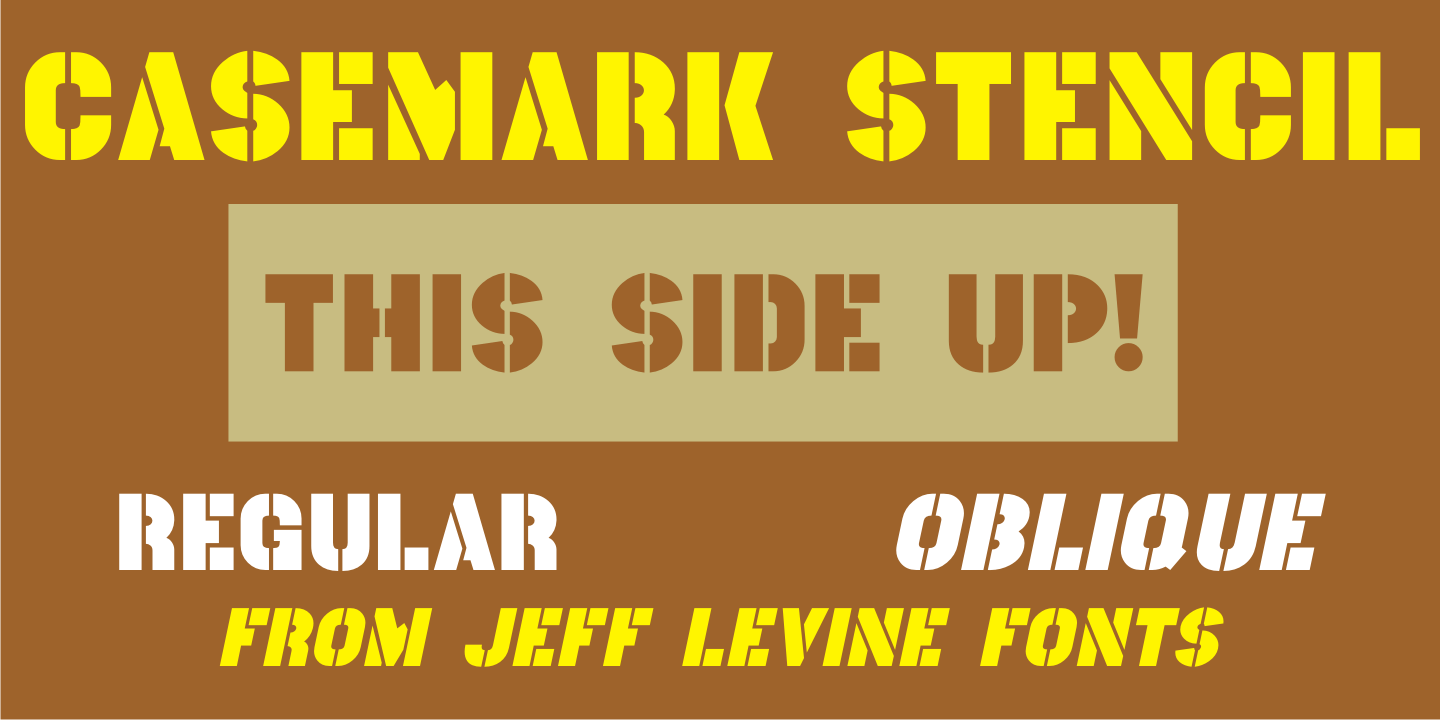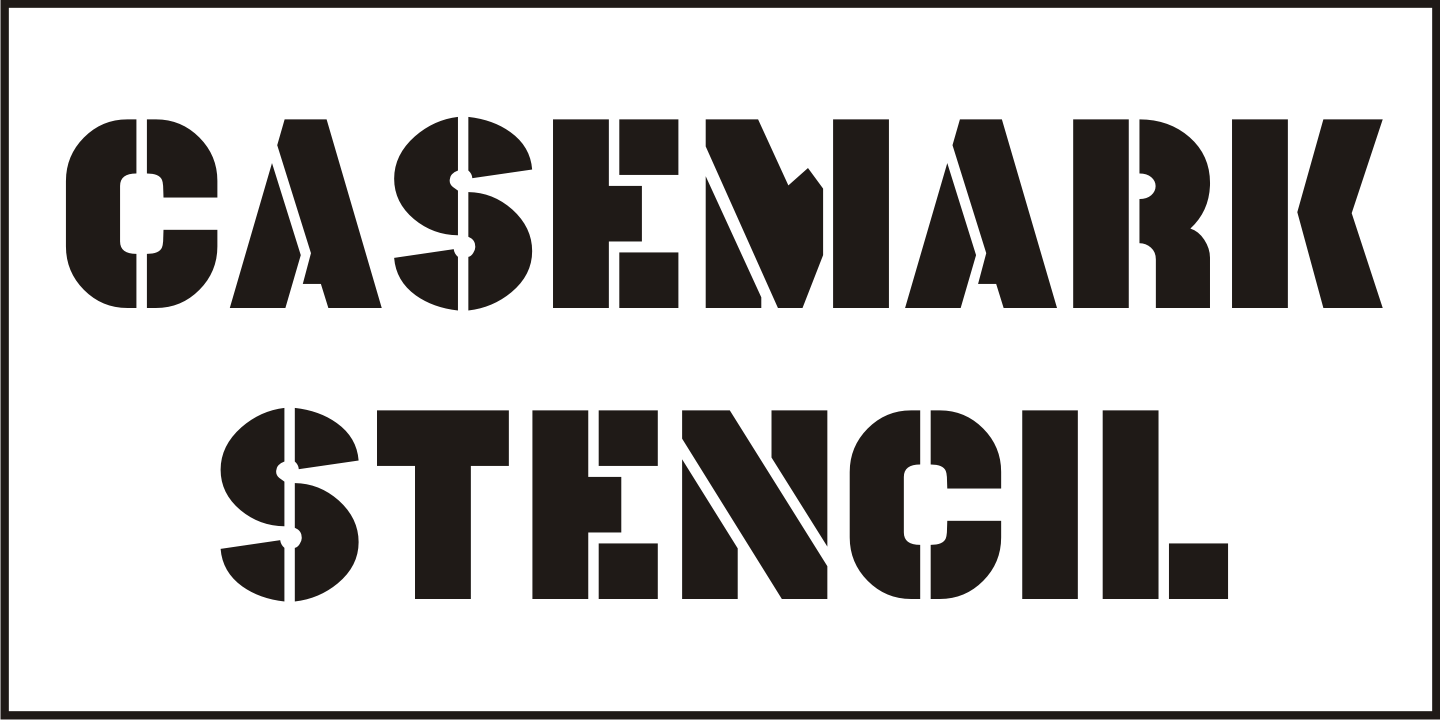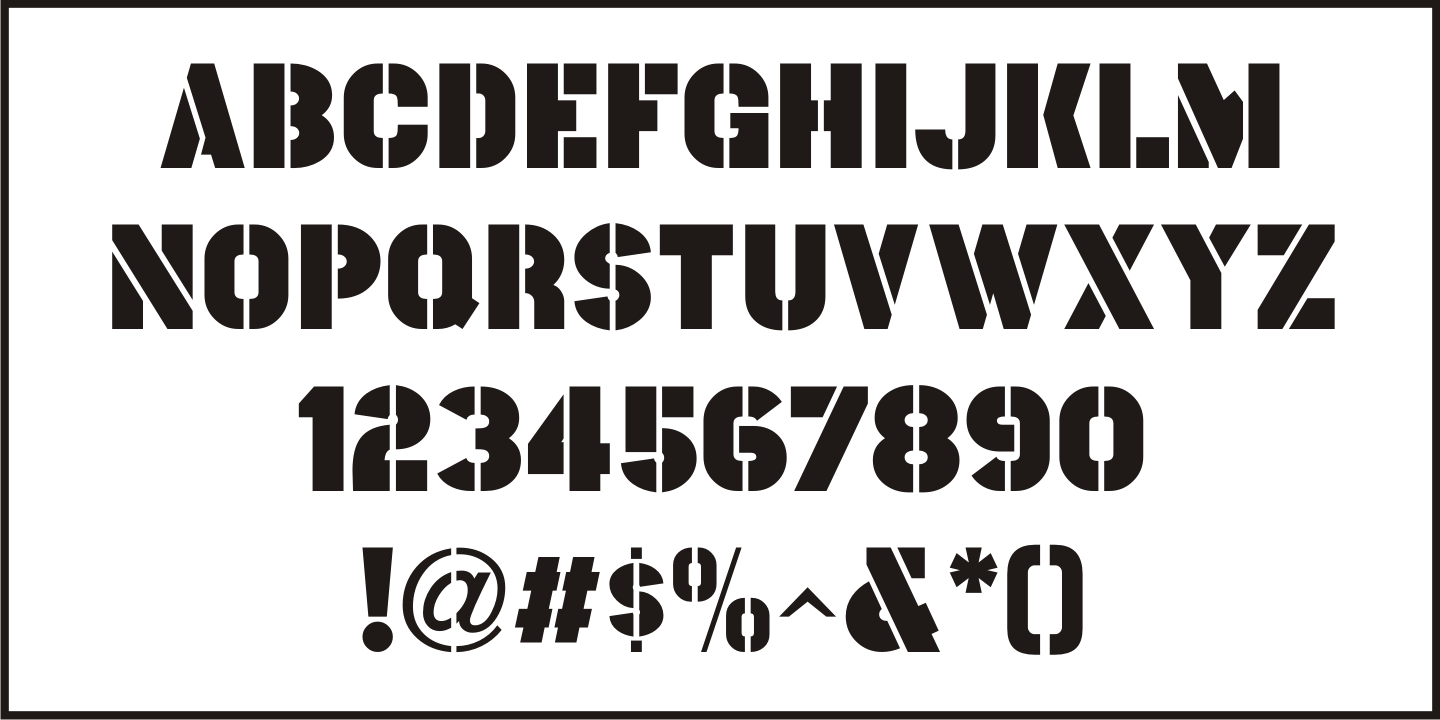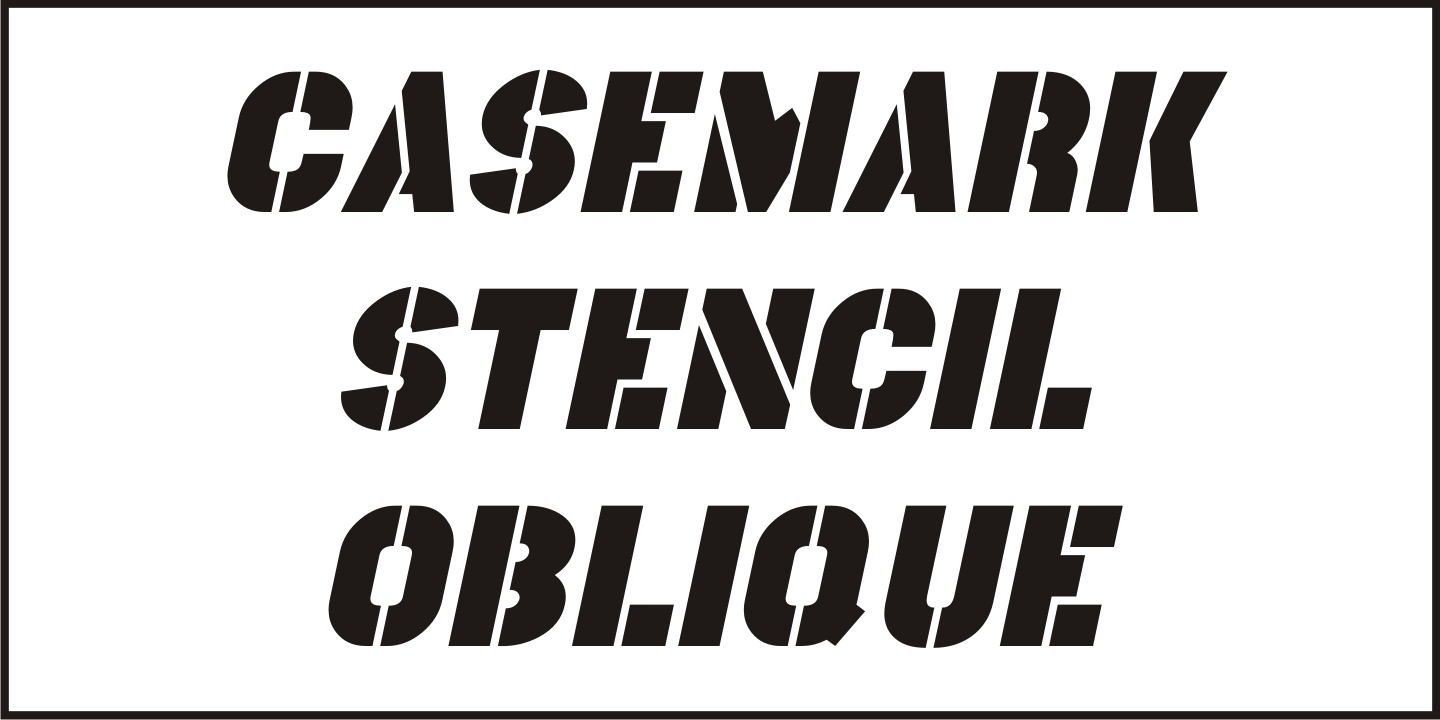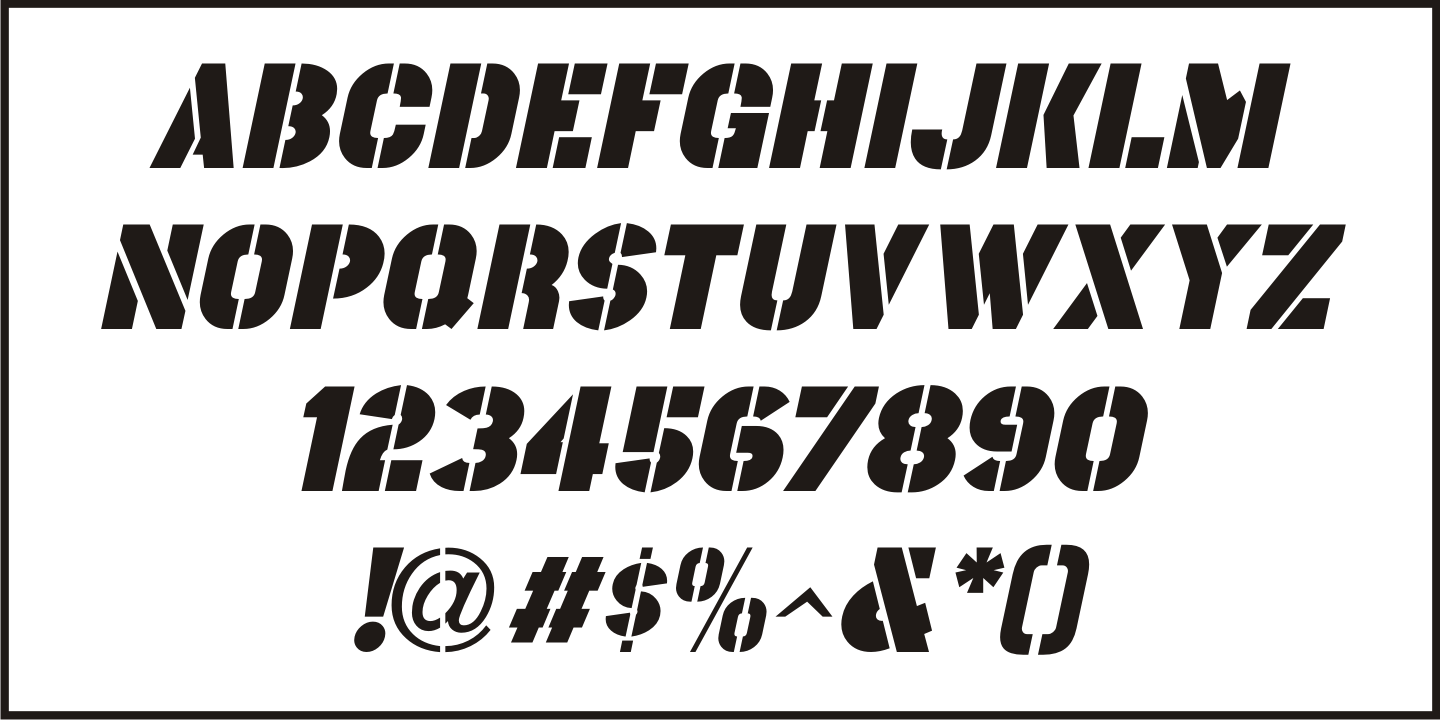
Casemark Stencil
Buy NowCasemark Stencil JNL is a bold sans serif design modeled after an image of a hand made antique shipping stencil used by the Bridgeport Brass Company of Bridgeport, Connecticut.
The type design is available in both regular and oblique versions.